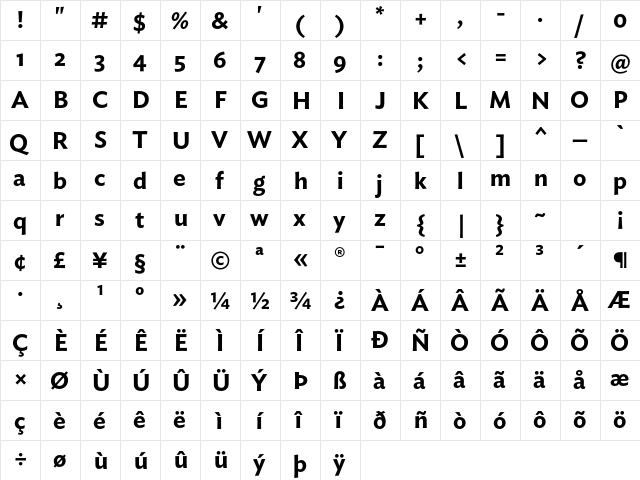
Ideal Sans Semibold
| Foundry | Hoefler & Frere-Jones |
| Designer | Hoefler & Frere-Jones |
Design Context for Ideal Sans Typeface
Ideal Sans takes a measured approach to typography — its balanced proportions and neutral character make it a reliable workhorse for both digital and print work. The heavy weight commands attention and anchors typographic hierarchies.
Pro Tip: Use Ideal Sans in both headline and body roles to test its range before committing to a single application.